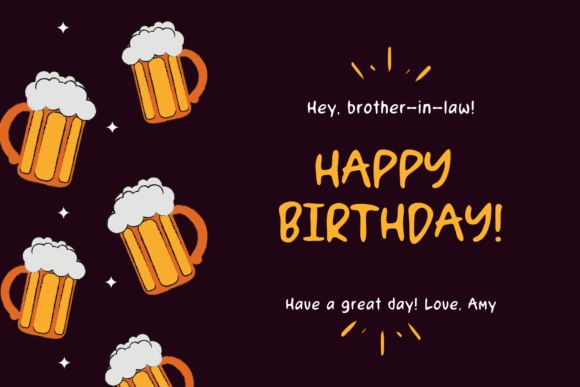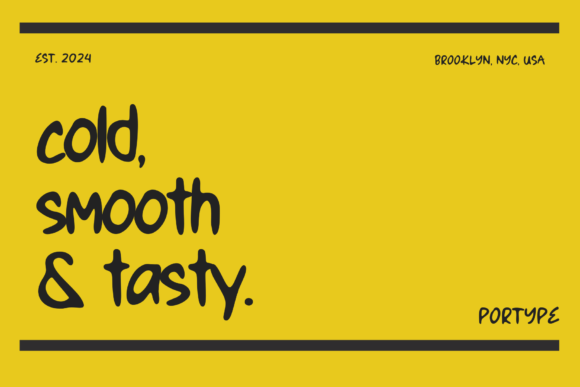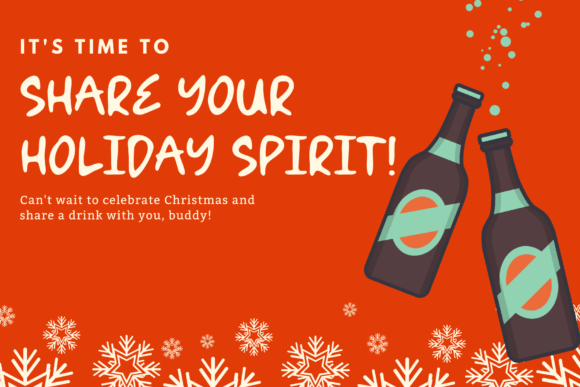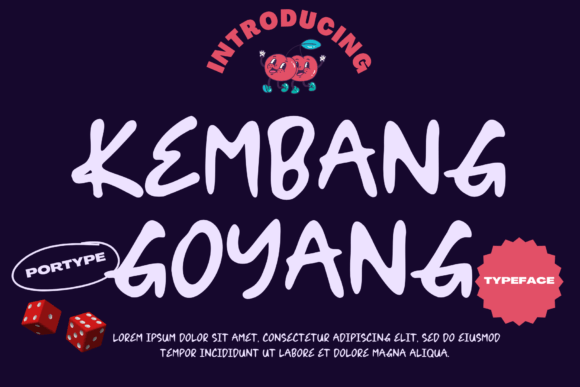
Introduction to Kembang Goyang Font
Kembang Goyang Typeface is a typeface designed with an elegant and artistic handwritten style.
Inspired by the graceful movements of traditional Indonesian dance, each character in Kembang Goyang features smooth and dynamic curves This typeface is perfect for a variety of creative projects such as invitations, packaging design, branding, and promotional materials that require a personal and aesthetic touch.
Kembang Goyang Font offers exceptional quality and versatility, making it a valuable addition to your design toolkit. Whether you’re creating for personal projects or commercial use, Kembang Goyang Font delivers professional results.